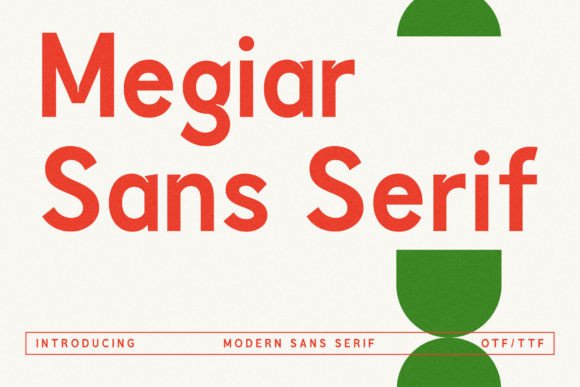
Embrace the beauty of expression with Megiar, a timeless sans serif font crafted to ignite your creative spirit. Let your words dance with grace and elegance as they adorn logos, book covers, movie titles, fashion labels, magazines, apparel, and more. Megiar's bold strokes exude a sense of luxury and sophistication, inviting your audience to immerse themselves in a realm of visual delight. Whether you're a designer seeking a distinctive touch or a writer yearning to leave a lasting impression, Megiar is your perfect companion.
With Megiar, your designs will transcend the ordinary, capturing the essence of timeless elegance. Its clean lines and captivating curves evoke a sense of sophistication, while its versatility allows it to effortlessly adapt to a myriad of design aesthetics. Create logos that command attention, book covers that draw readers in, and movie titles that leave a lasting impression. Megiar is the perfect choice for fashion brands seeking to exude luxury, magazines aiming to elevate their visual appeal, and clothing lines hoping to make a statement.
Megiar's allure extends beyond its visual appeal. Its carefully crafted characters possess an emotional resonance that will captivate your audience. Use Megiar to craft love letters that stir the heart, quotes that inspire the soul, and lettering that speaks volumes. With Megiar, your words will take on a life of their own, leaving an indelible mark on the minds of your readers.
Embark on a journey of creative expression with Megiar, a sans serif font that embodies elegance, versatility, and emotional depth. Let your designs and words shine with a newfound brilliance, captivating your audience with every stroke.